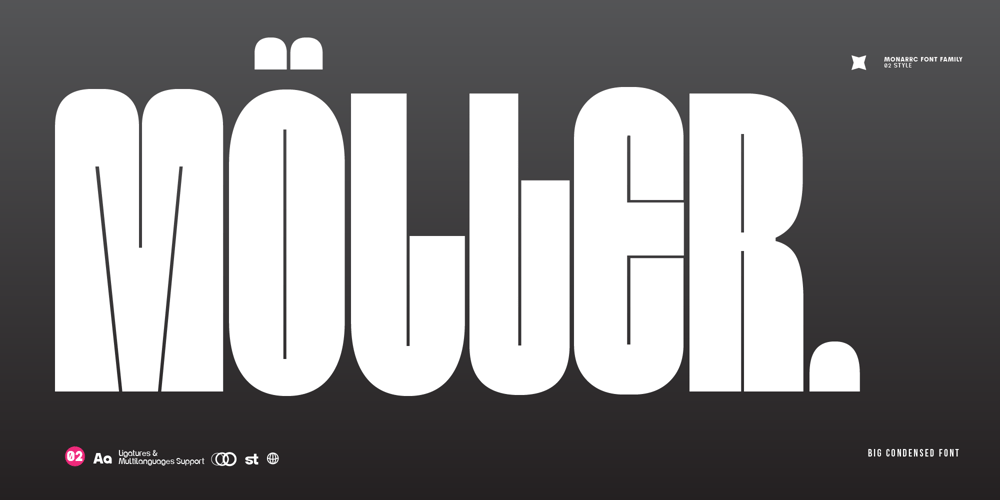
Fd Moller Font Family was designed by Ramandhani Nugraha and published by Fortunes Co. Fd Moller contains 2 styles and family package options. Moller has a strong but soft character, with a cheerful and fresh theme, supported by 2 Style. Moller is able to answer your current needs who are designing something great. Moller is a bold and unique display font. Masterfully designed to become a true favorite character, moller is able to answer your current needs who are designing something great Its weight is superior in posters, social media, headlines, magazine titles, clothing, large print formats.